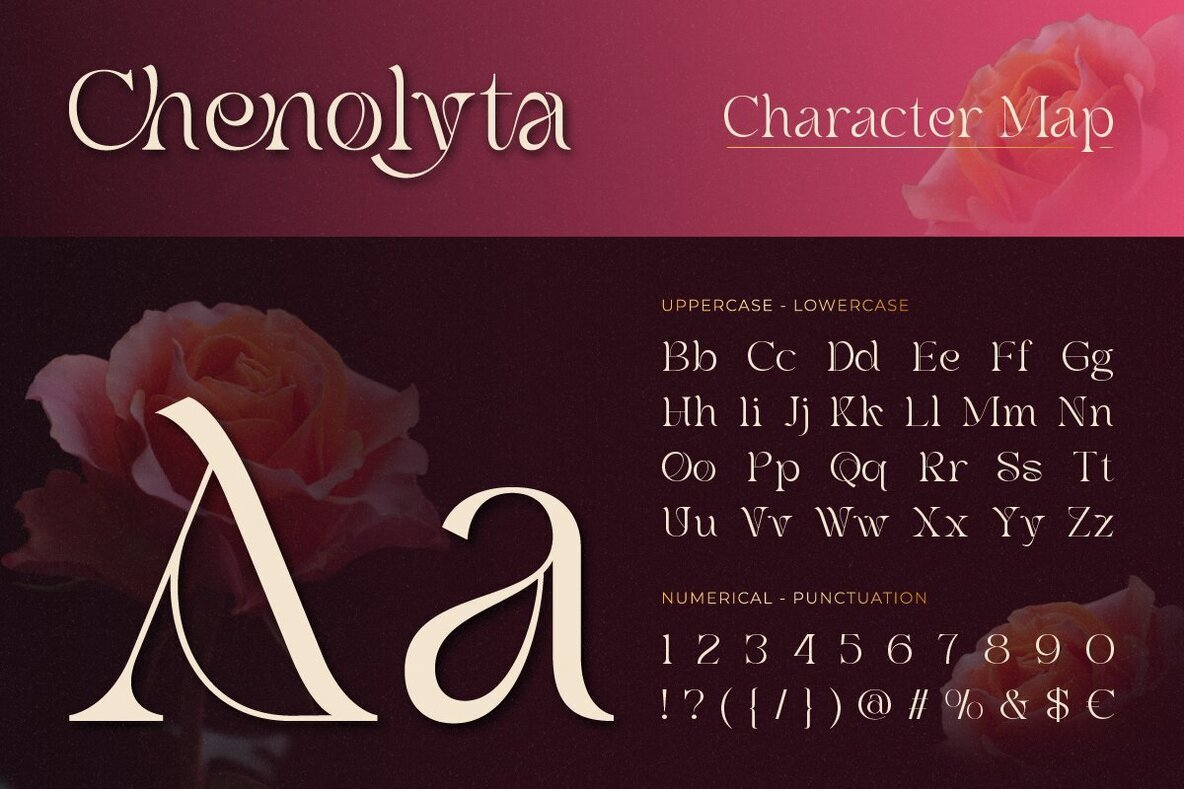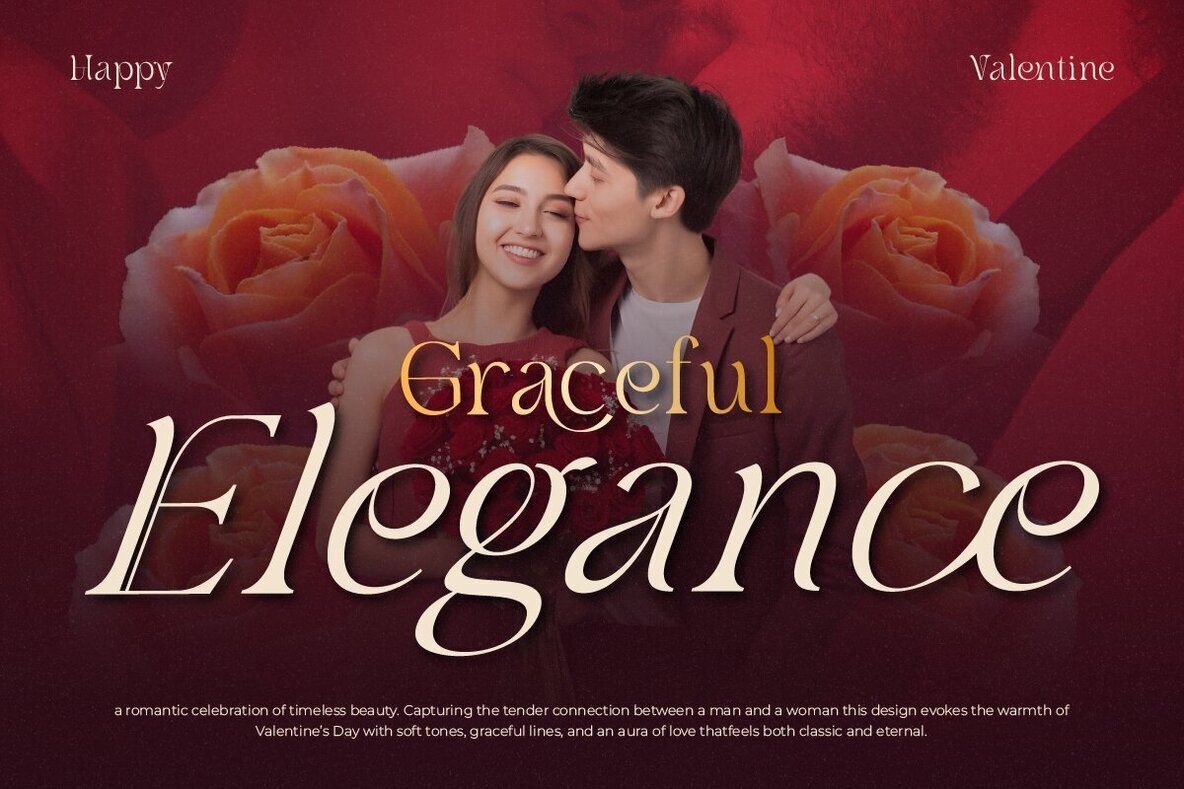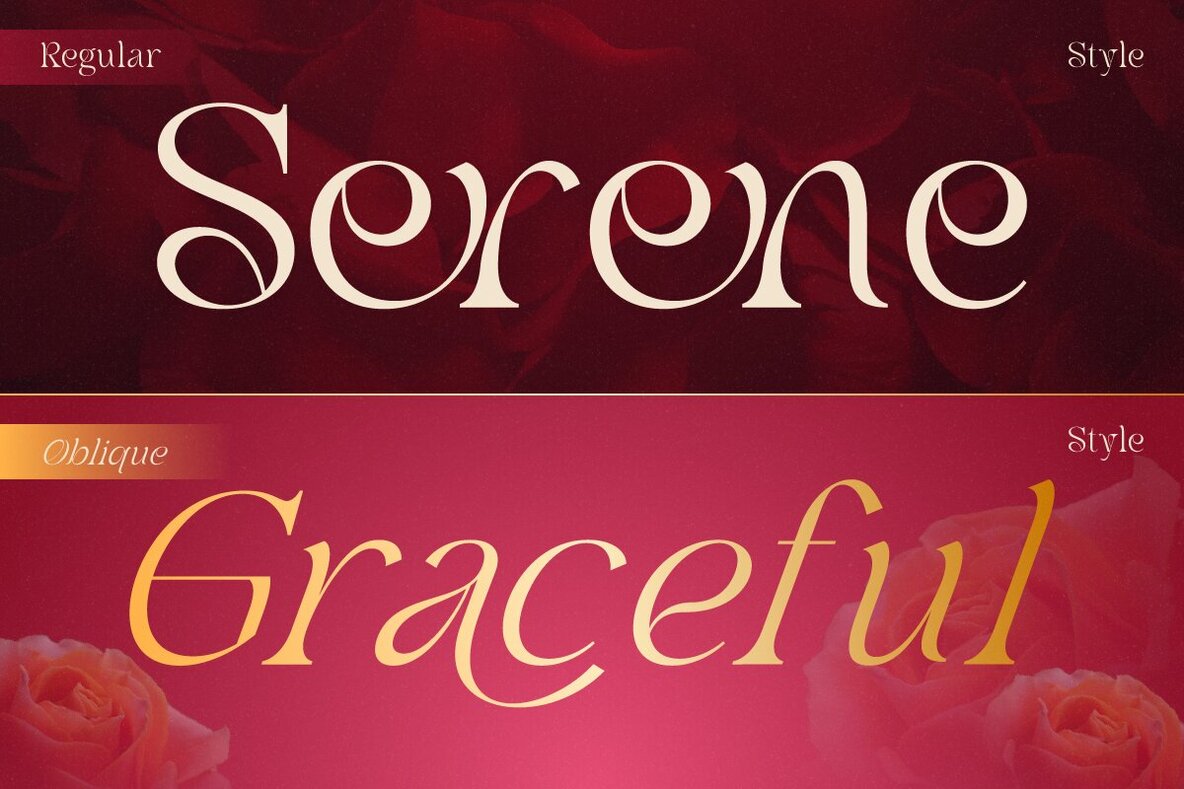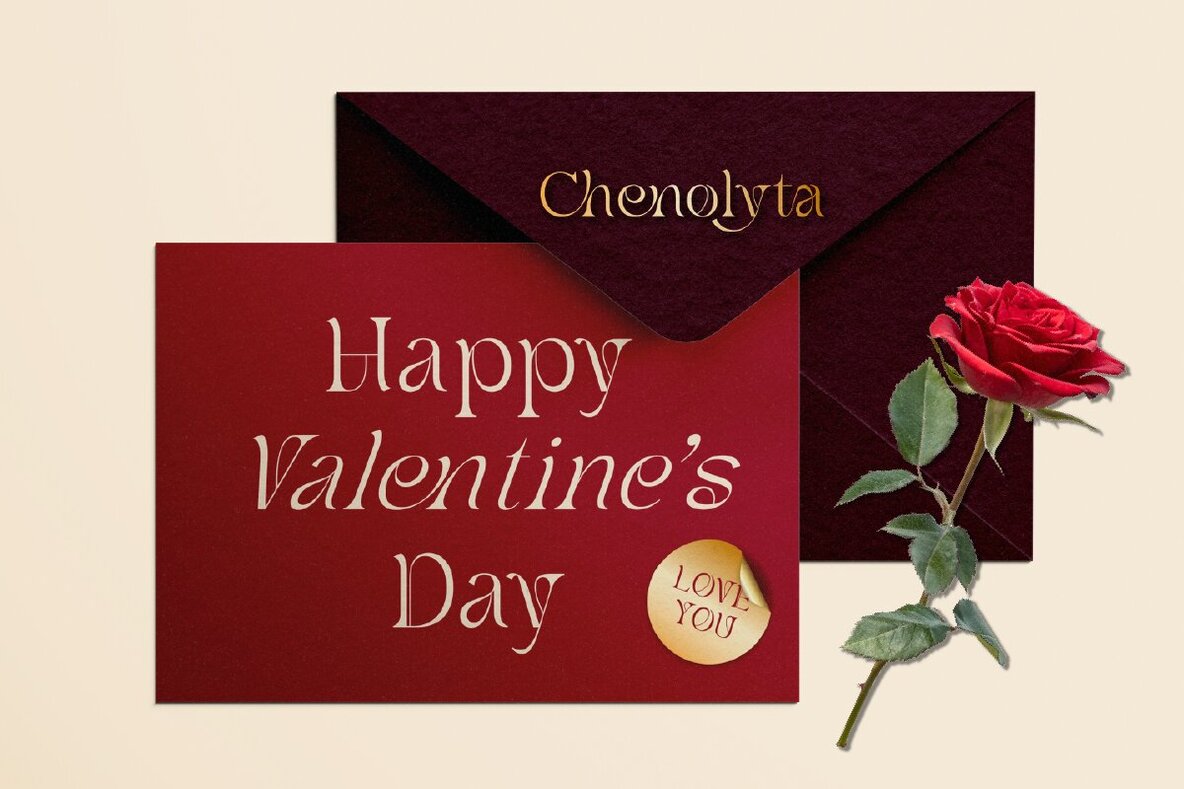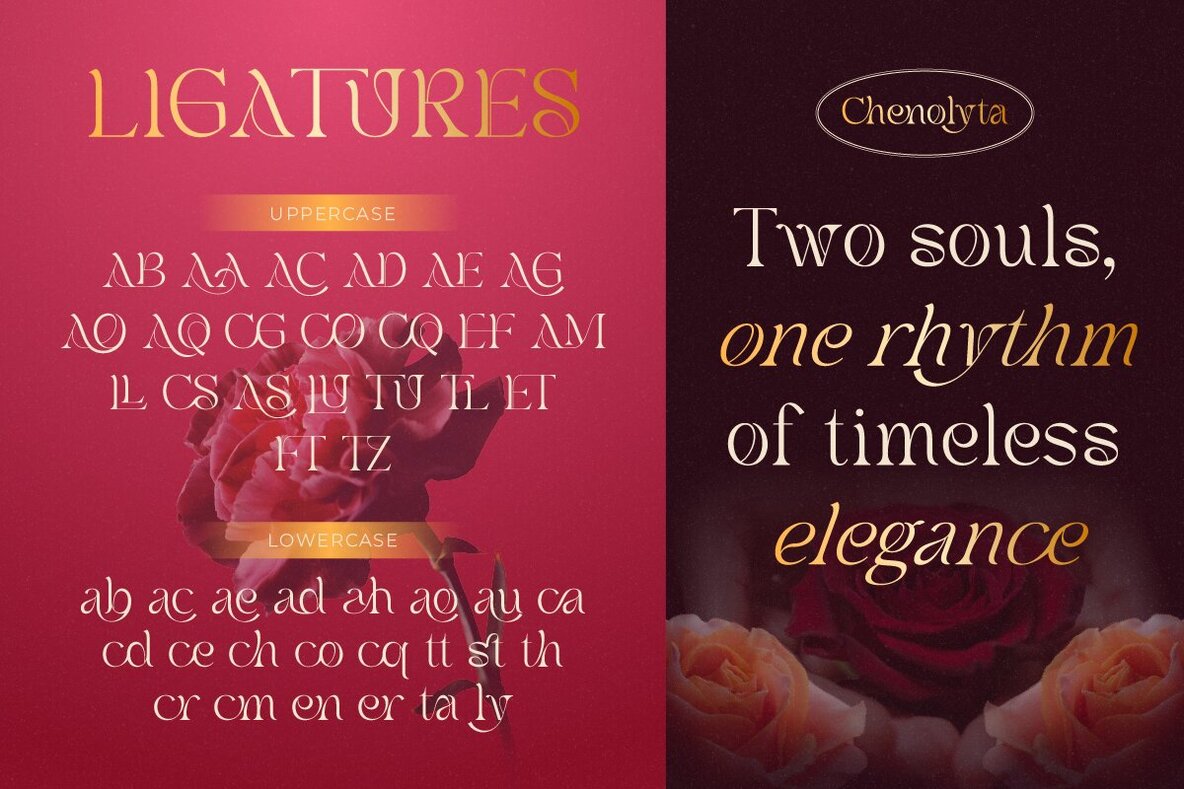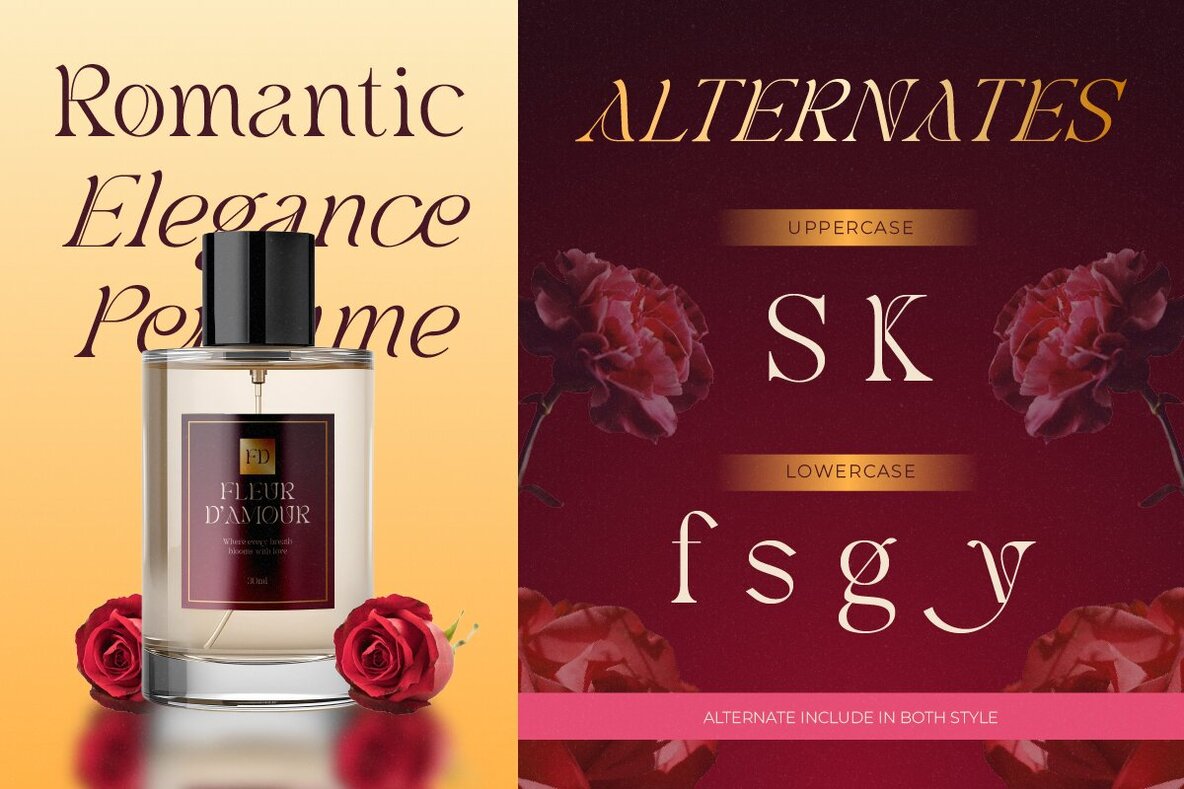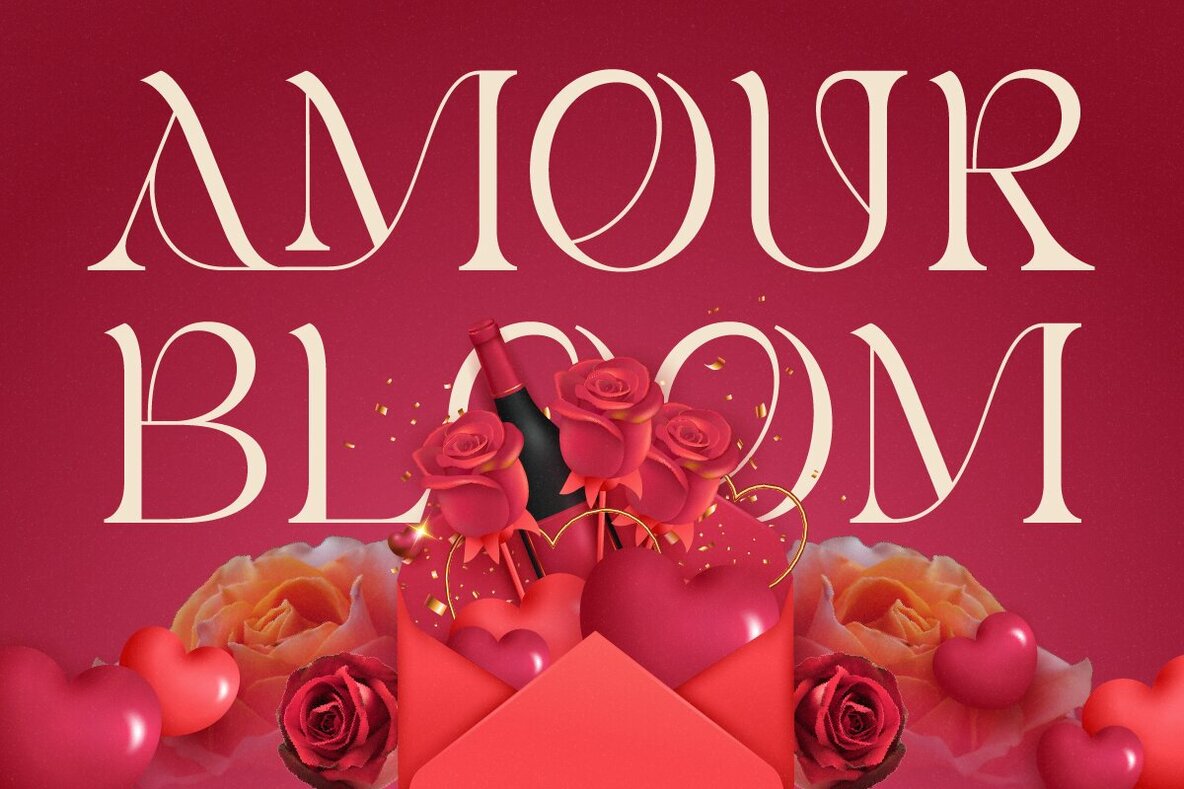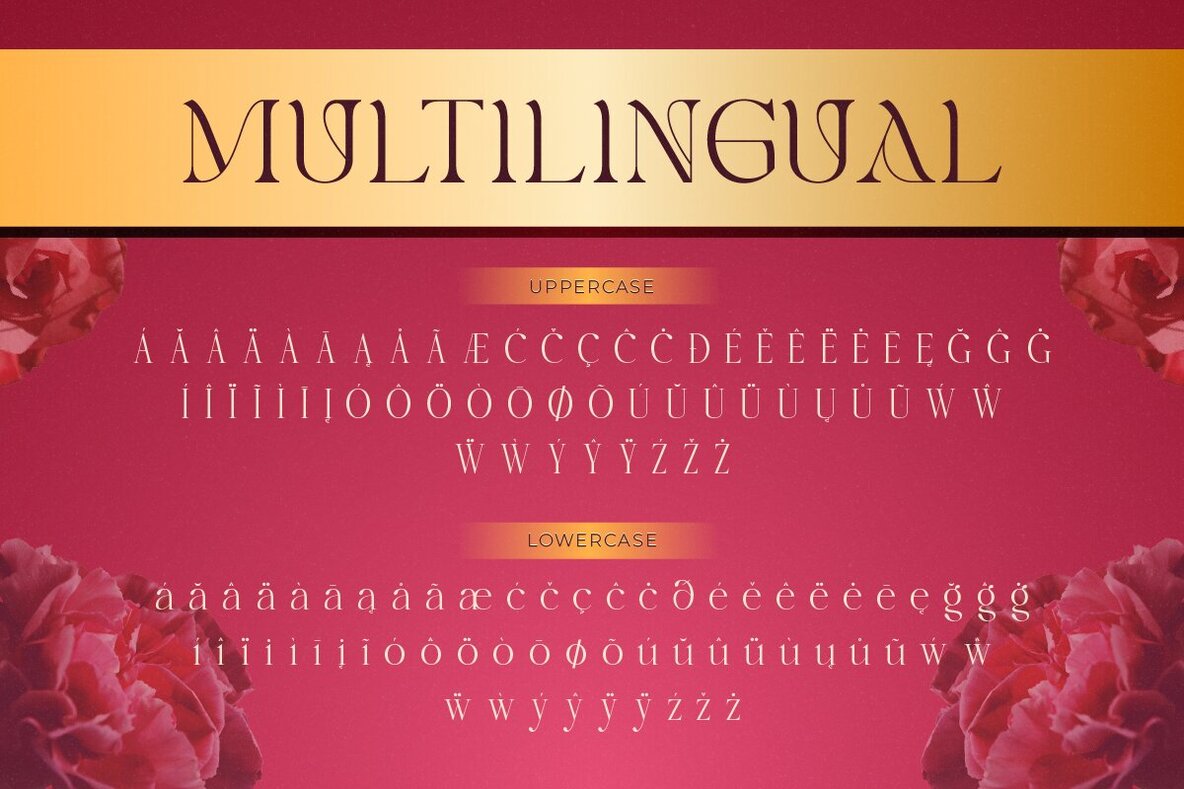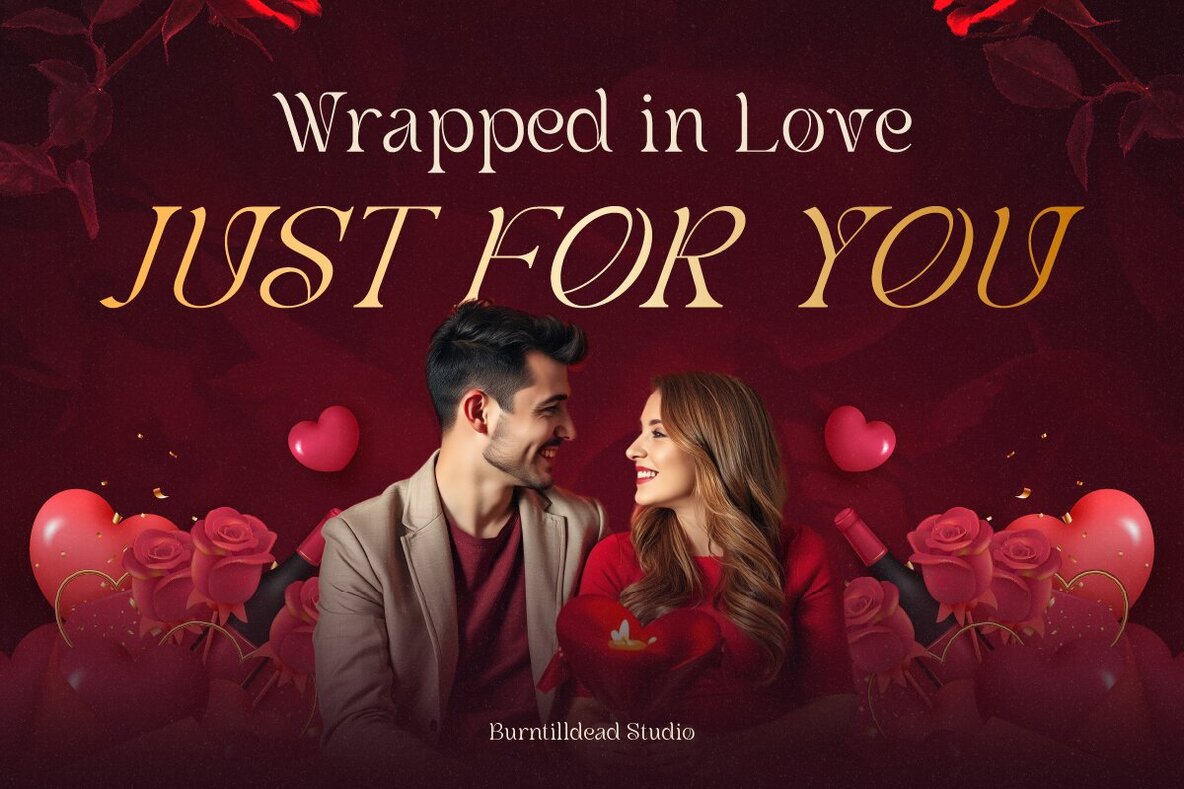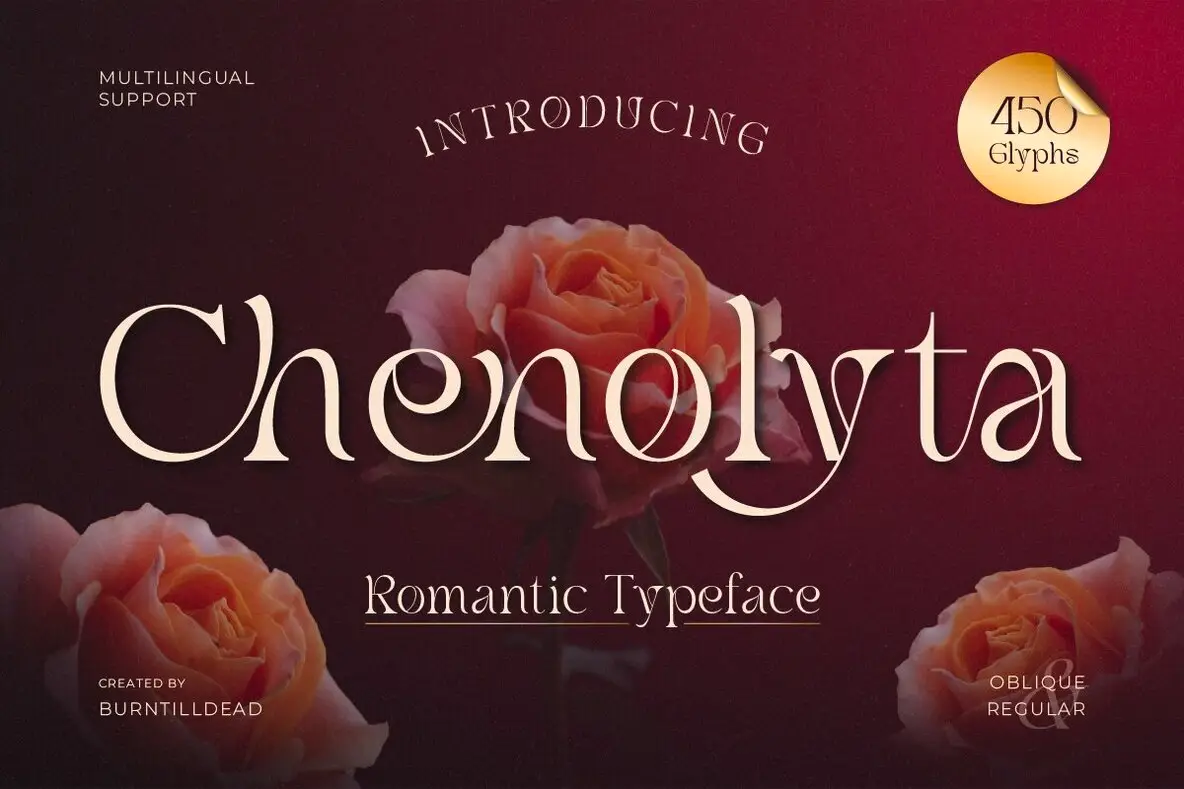
Chenolyta Font
Chenolyta Regular
Chenolyta Oblique
Chenolyta is designed for those who appreciate romantic, elegant typography with modern flair. This sophisticated serif font features smooth curves and graceful flourishes, making it a standout choice for wedding invitations, luxury packaging, perfume branding, and Valentine’s-inspired projects. The carefully crafted balance between artistic energy and timeless charm ensures that every letter conveys grace and refinement. This typeface includes over 450 glyphs, offering both oblique and regular styles for versatile design possibilities. The range of stylish ligatures, alternates, and multilingual support allows you to compose captivating headlines or poetic logos. Chenolyta brings a sense of refined beauty to each word, lending designs a distinct and memorable presence.Chenolyta: A Romantic Serif Typeface